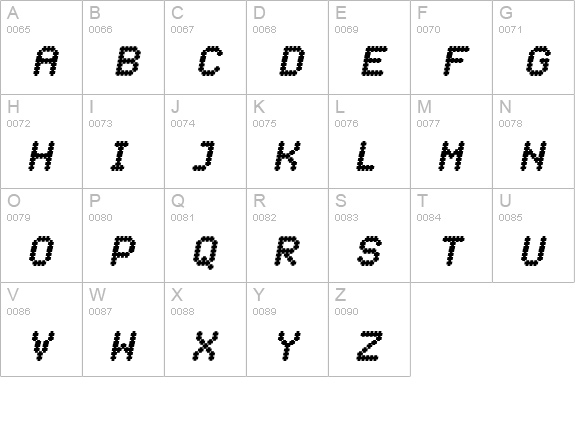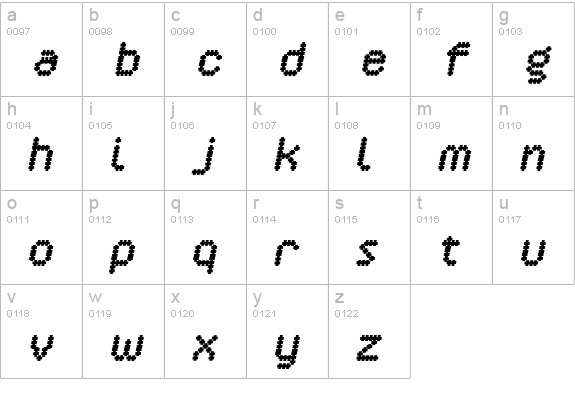
Crossover ExtraBoldOblique Font Details
Crossover ExtraBoldOblique font is a bold and dynamic typeface that exudes confidence and modernity. Its sleek design and slanted style make it perfect for adding a touch of sophistication to any project. The sharp angles and exaggerated curves of this font give it a distinctive edge that commands attention. Best of all, Crossover ExtraBoldOblique font is available for free download at FontsMarket.com. Whether you're working on a poster, logo, or website design, this versatile font will make a bold statement and elevate your project to the next level. Don't miss out on the opportunity to enhance your work with this eye-catching typeface that is sure to leave a lasting impression.